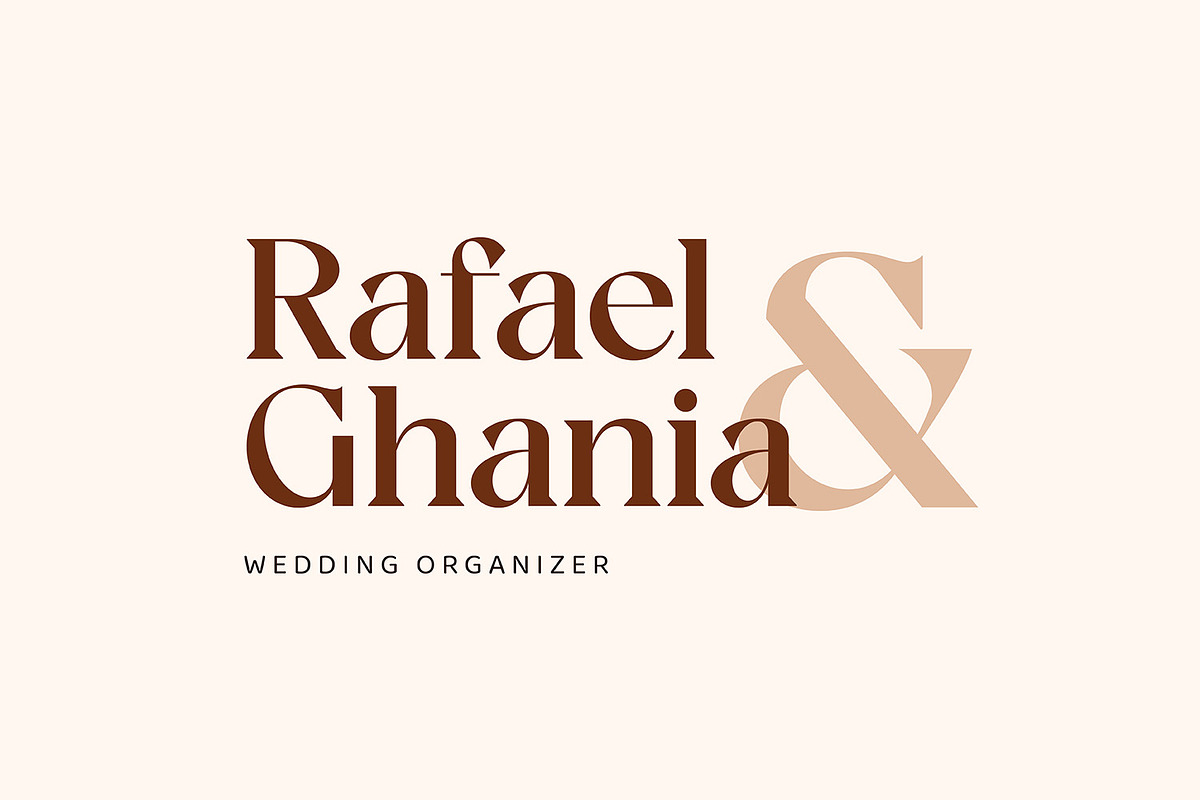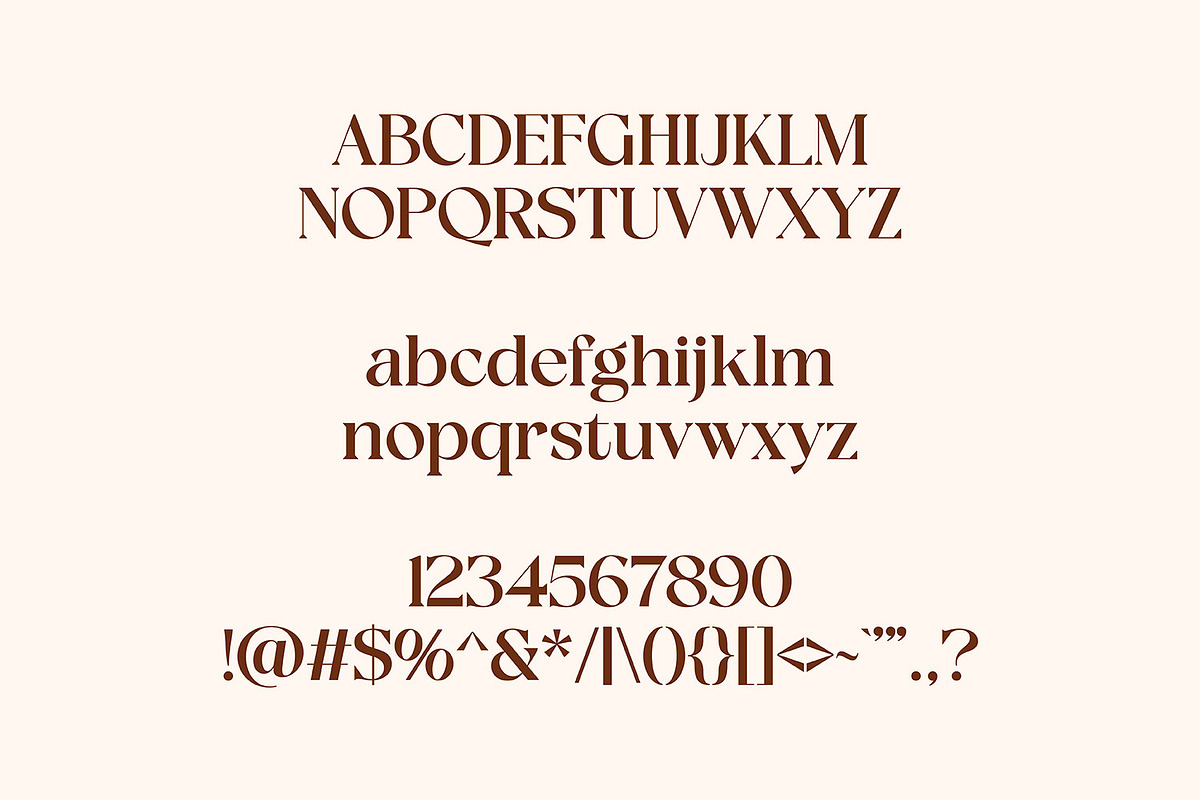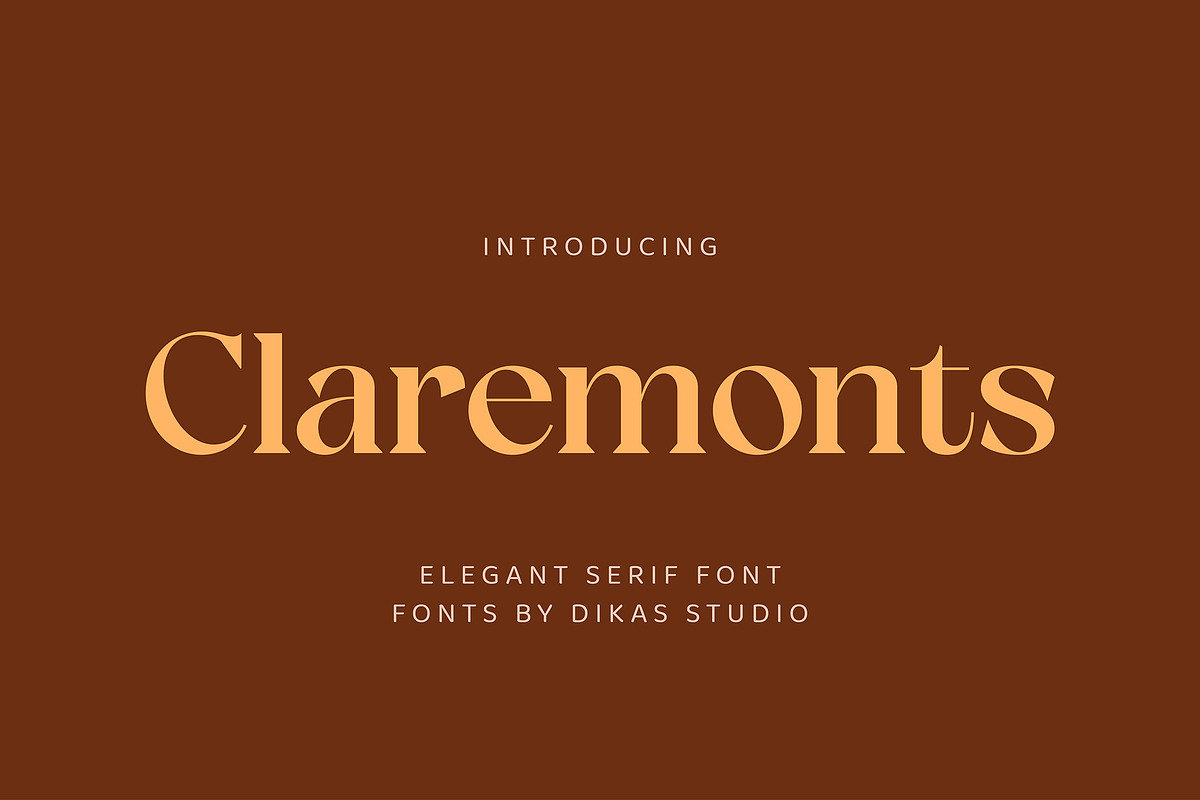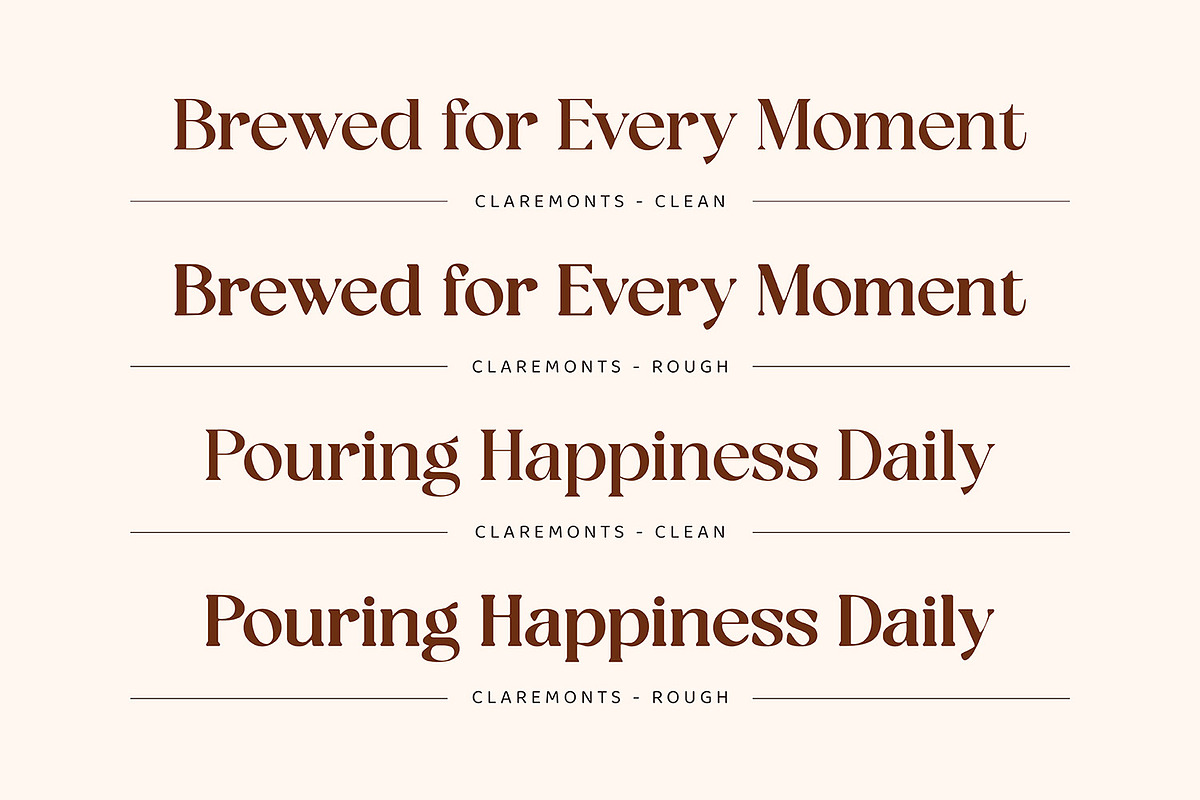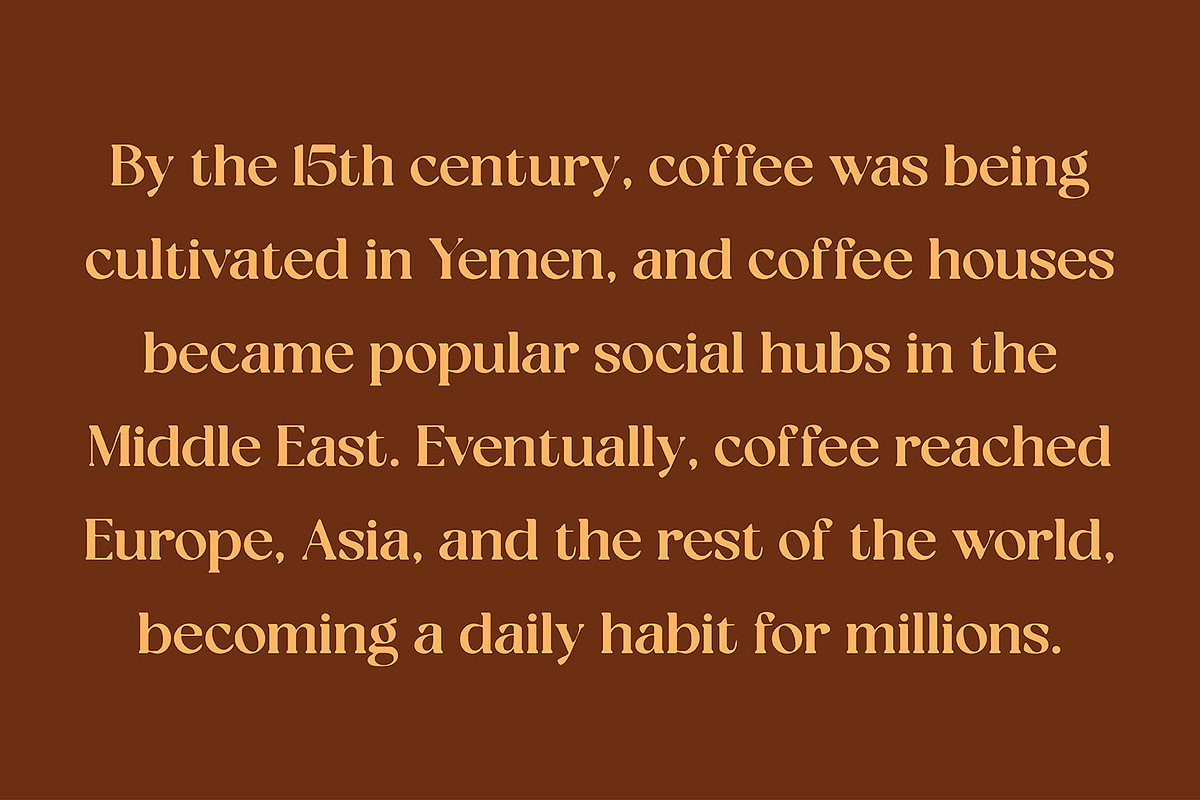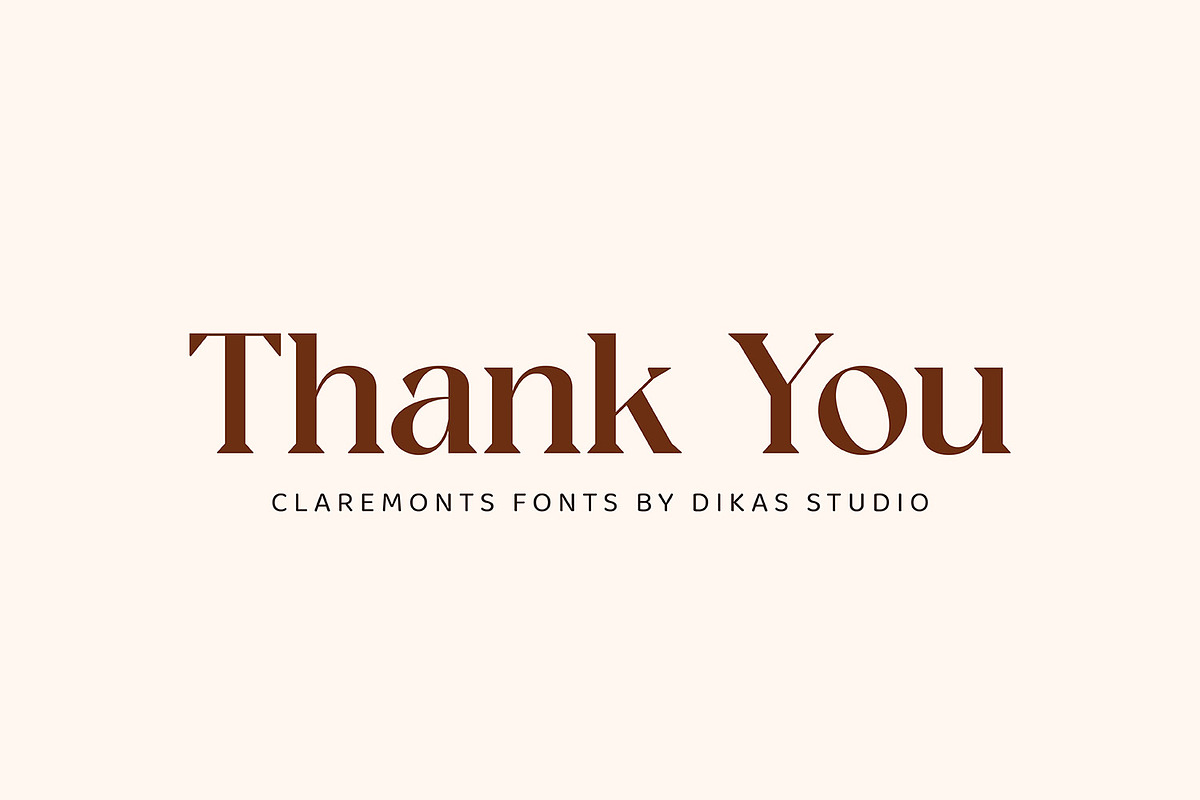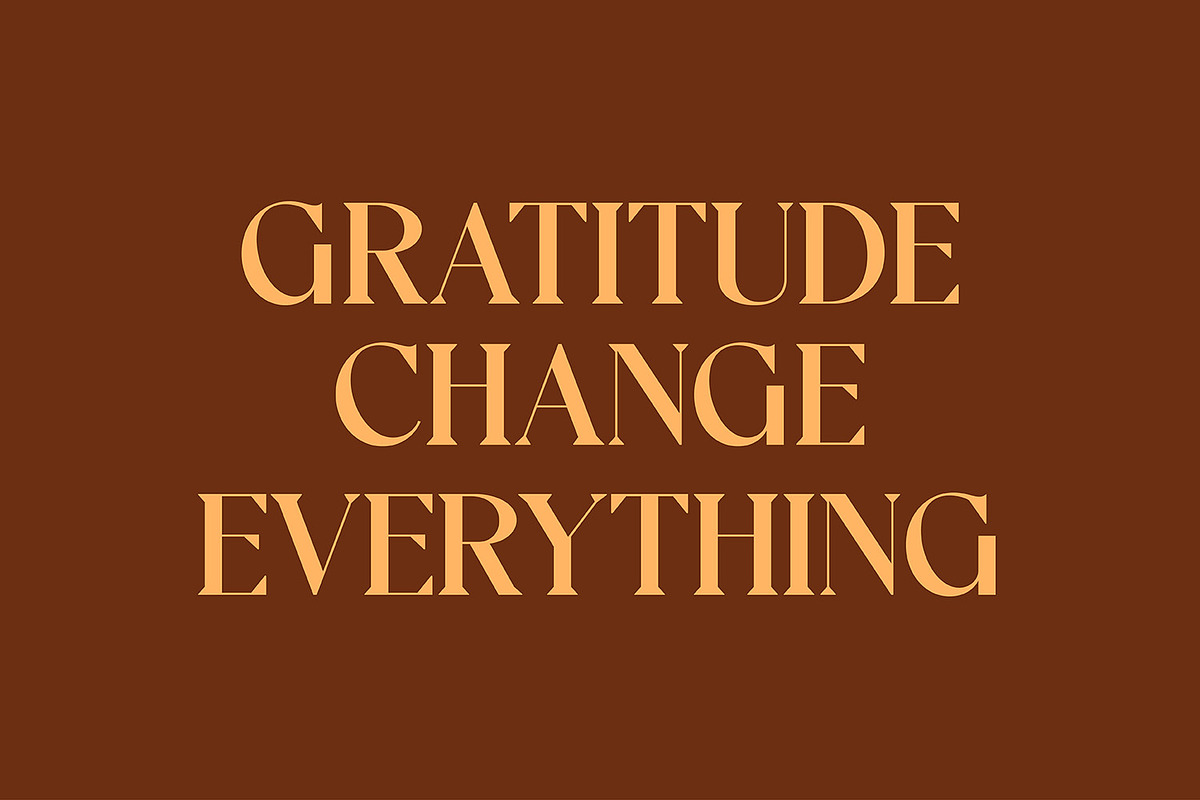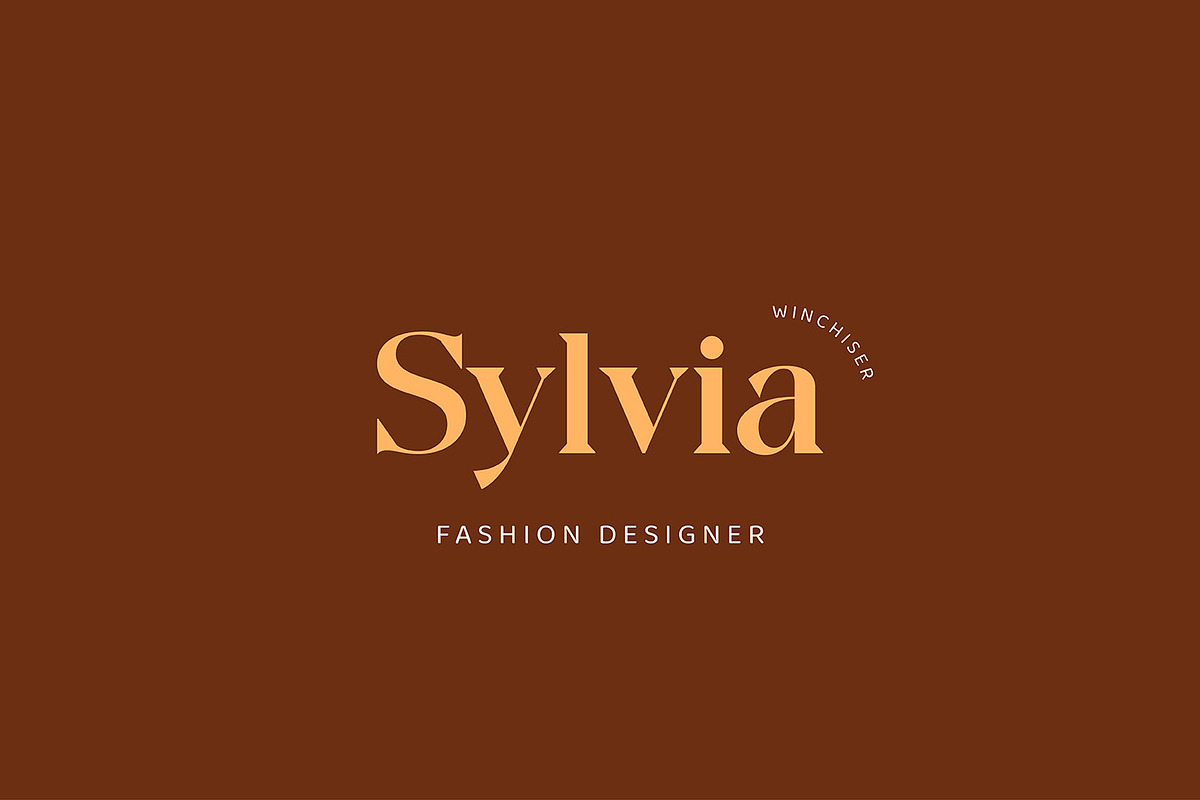
Claremonts
Claremonts – Bold Elegant Serif Font
Claremonts is a bold serif font with elegant contrast details, designed to bring sophistication and impact to any project. This elegant serif font works perfectly for headlines, logos, fashion branding, and editorial layouts. The set includes one weight, along with a rough style and alternate characters, making it a versatile bold serif typeface for creative flexibility. With its strong contrast shapes, Claremonts is an ideal, elegant serif font for posters, book covers, digital interfaces, and modern branding.